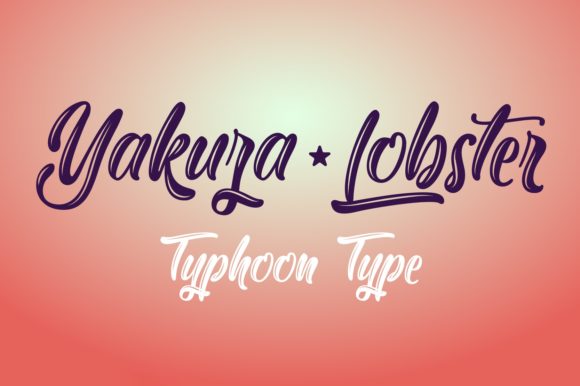
Yakuza Lobster Font
About Yakuza Lobster Font
The Yakuza Lobster font is a bold rounded font.
It’s perfect for a large type of different projects, such as logos, advertising, product packaging, apparel and much more.